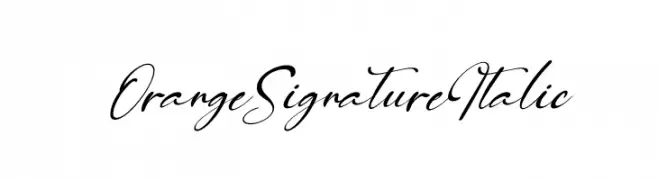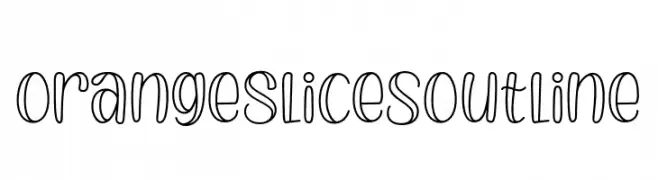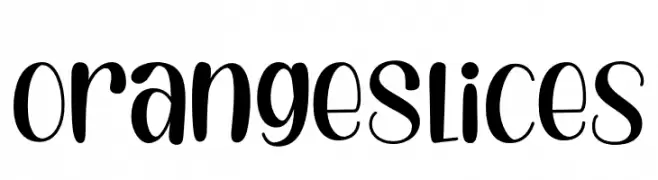
A modern-vintage font with elegant curves and sharp edges, ideal for sophisticated designs.
A playful and decorative font with circular embellishments on uppercase letters.
A playful and whimsical font with bold and thin strokes, perfect for creative projects.
A playful, outline-style font with a whimsical, hand-drawn appearance.
A playful and whimsical script font with decorative flourishes.
A graceful, cursive font with elegant loops and swirls.
A sophisticated, italic script font with flowing, elegant strokes.
A vintage typewriter-style font with a textured, distressed appearance.
A bold, flowing script font with interconnected letters and a playful style.
A dynamic and fluid script font with elegant curves and a cohesive style.